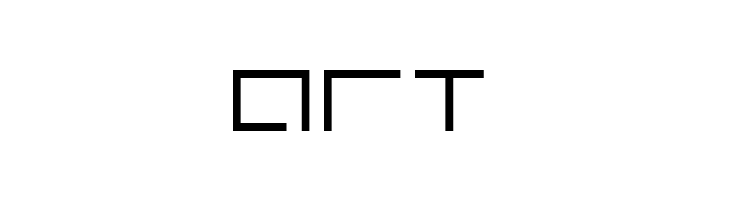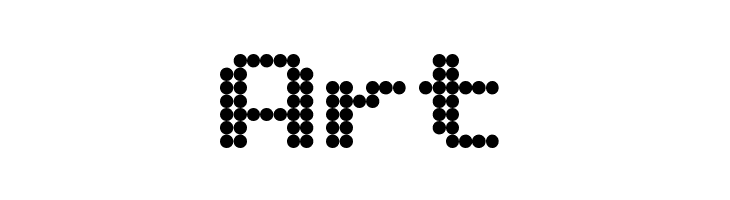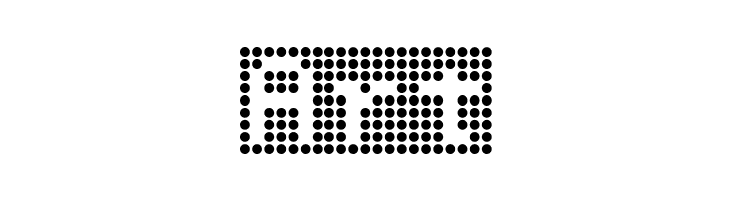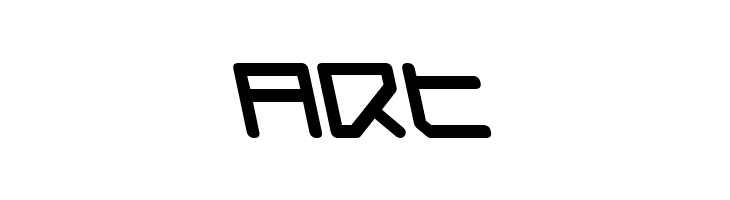
A geometric, monospaced font with a mechanical and futuristic design.
A geometric, outline-style font with a futuristic and technical appearance.
( Font by Sven Stuber - www.superlooper.de )
A pixelated dot-based font with a modern, digital display style.
A futuristic, geometric font with bold, angular strokes.